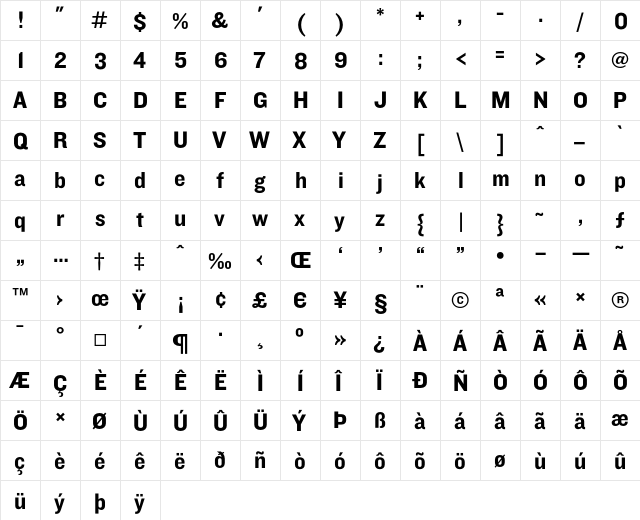
Knockout HTF51-Middleweight
| Style | HTF51-Middleweight |
Design Context for Knockout Typeface
Knockout takes a measured approach to typography — its balanced proportions and neutral character make it a reliable workhorse for both digital and print work.